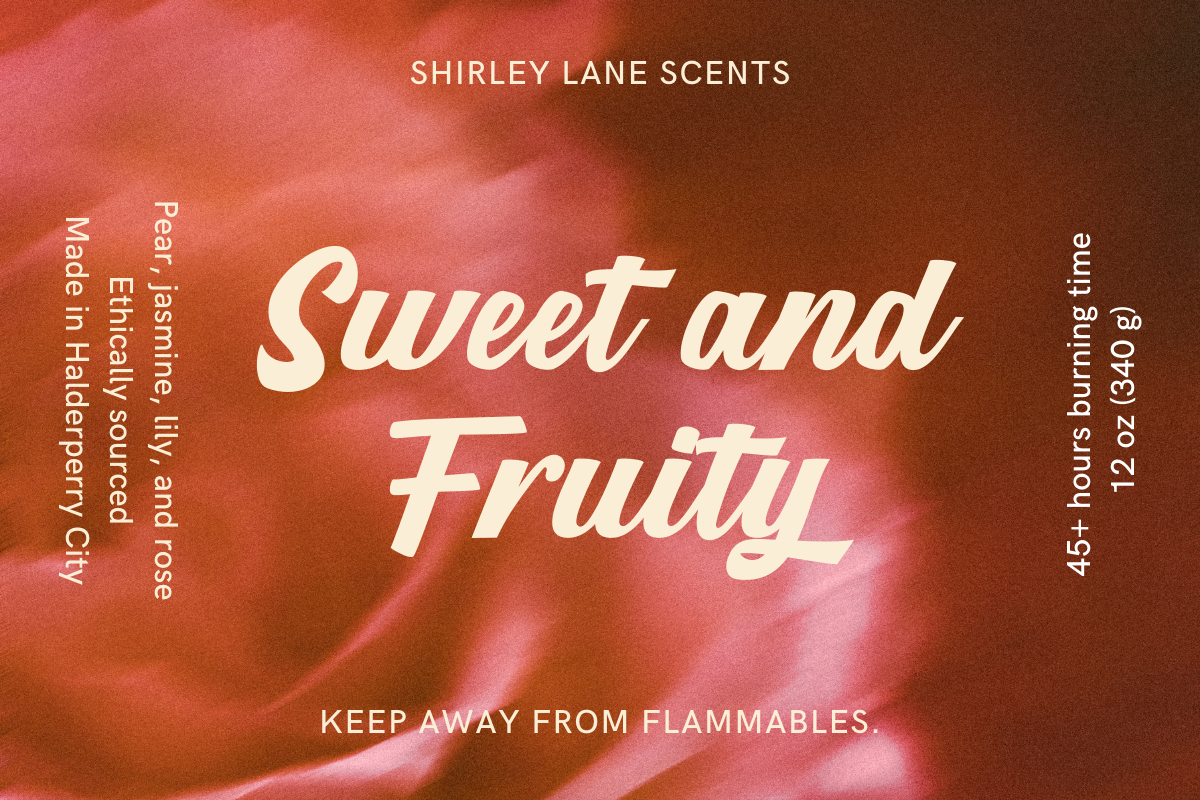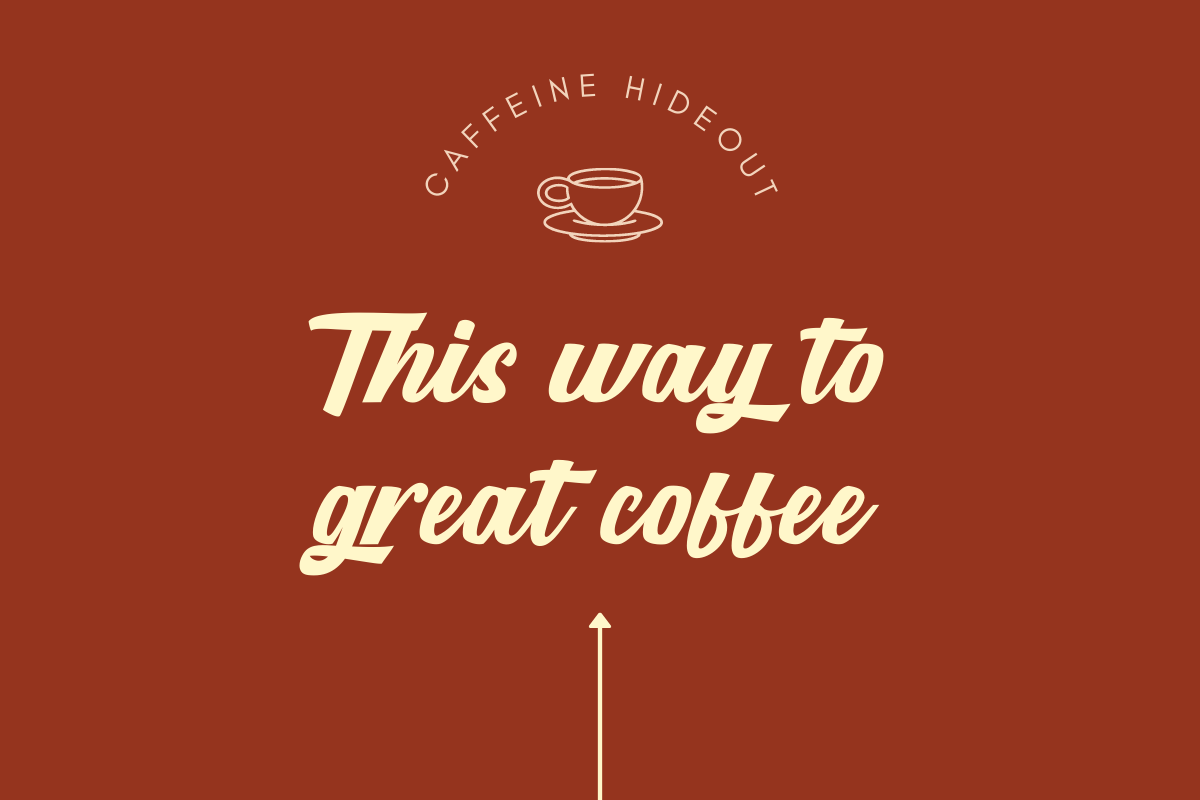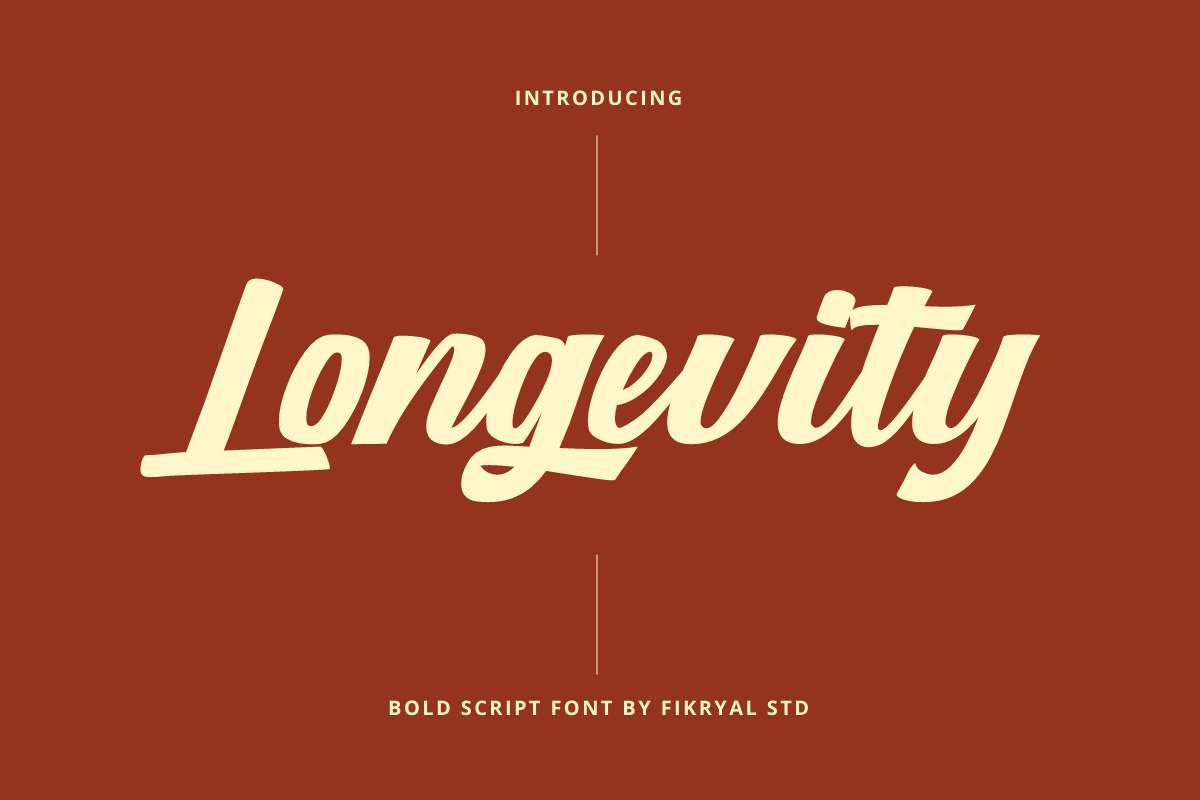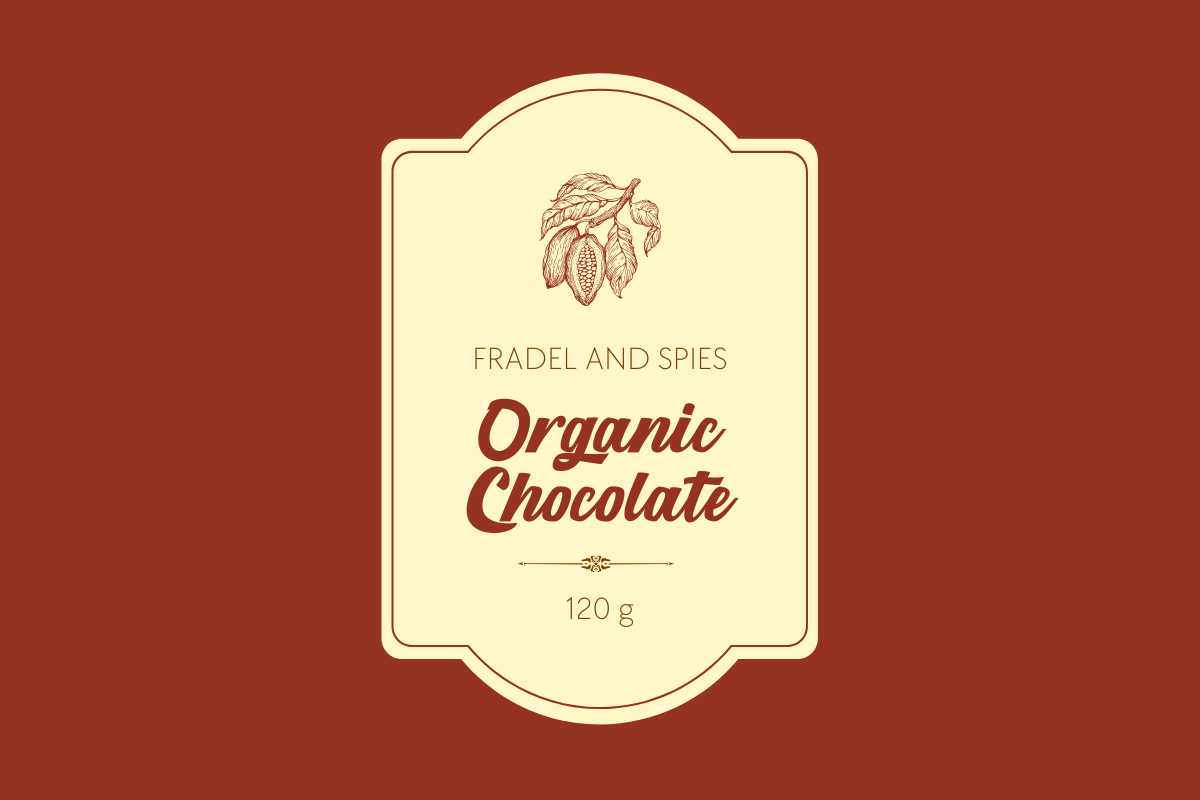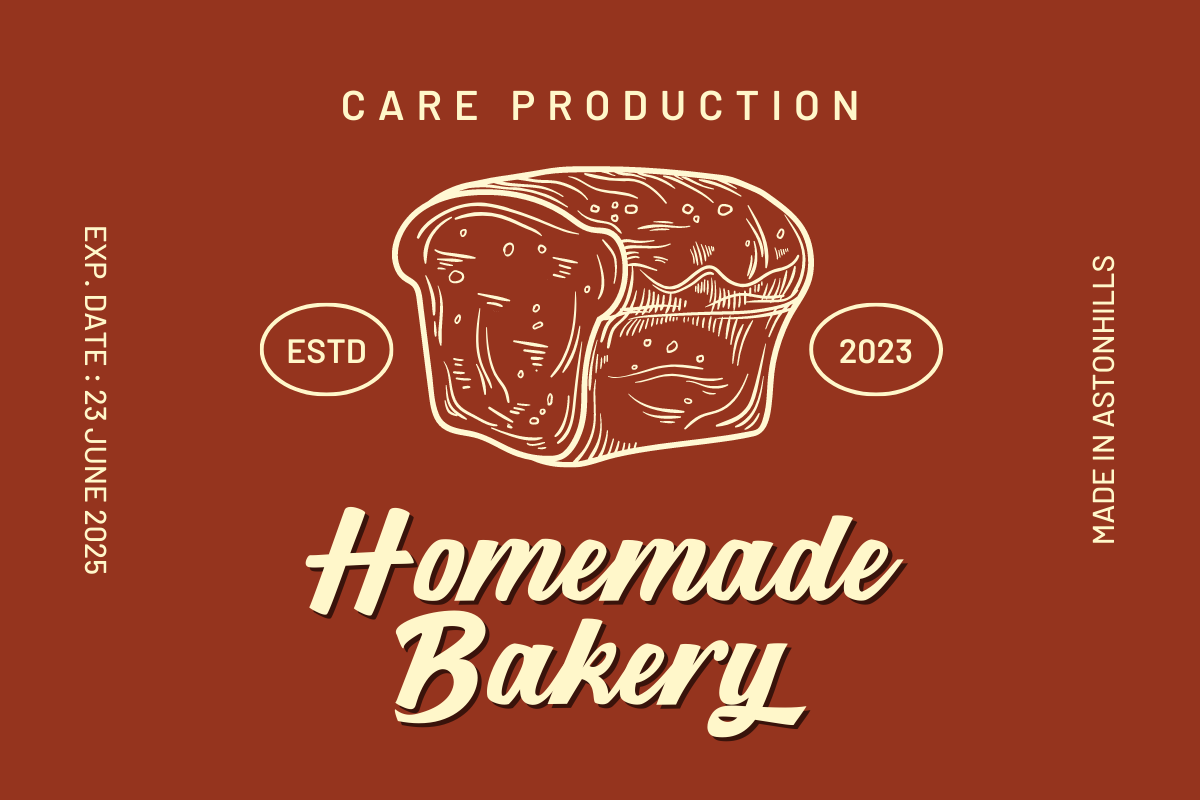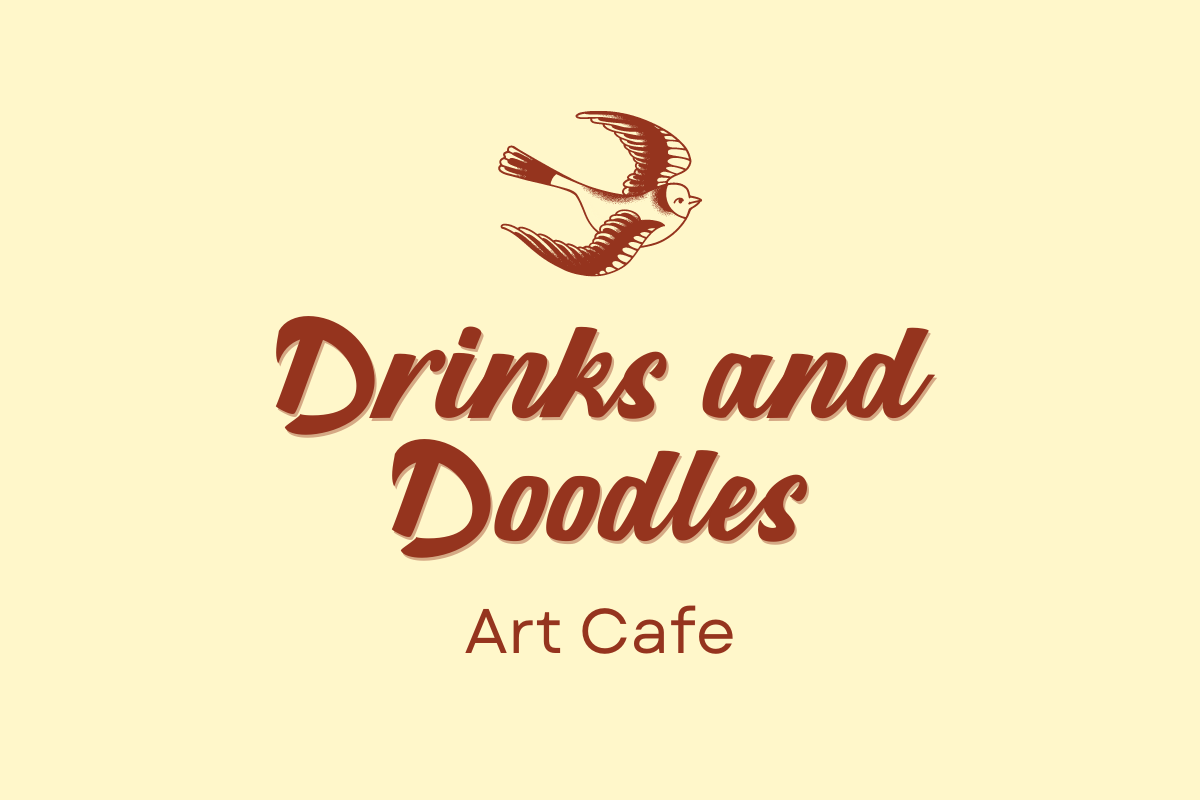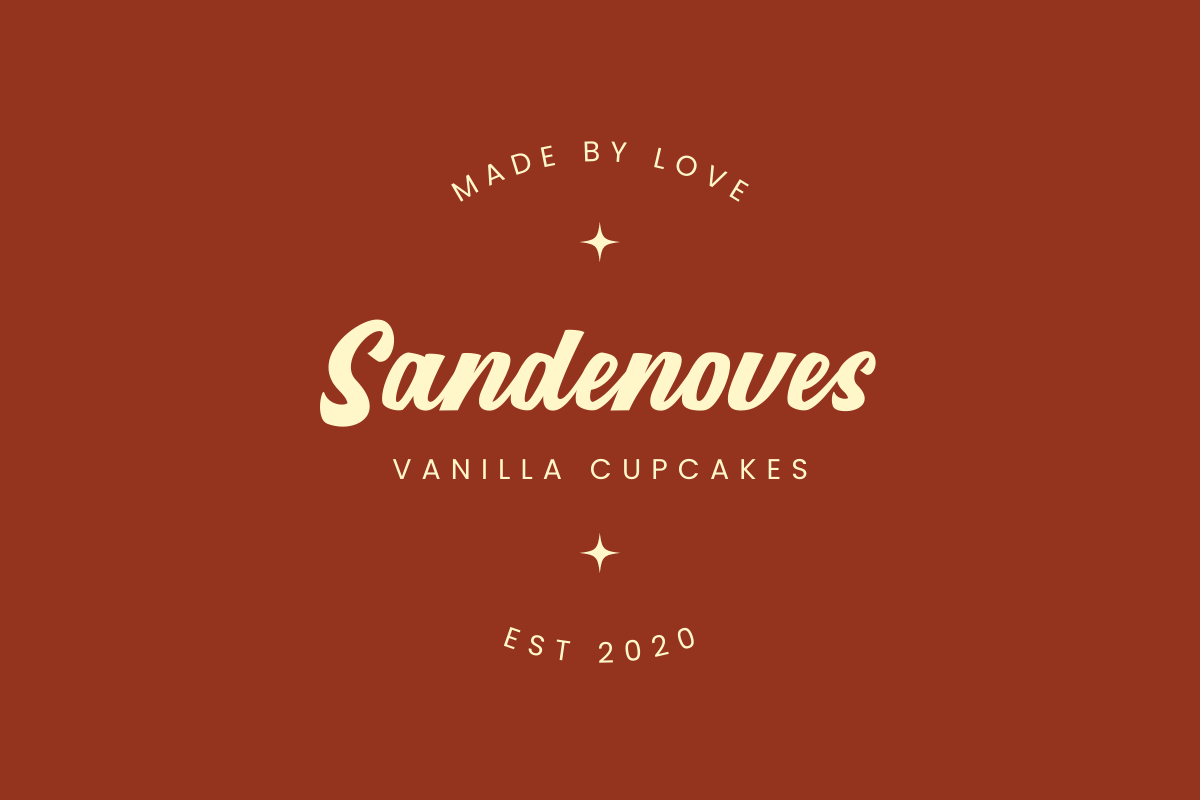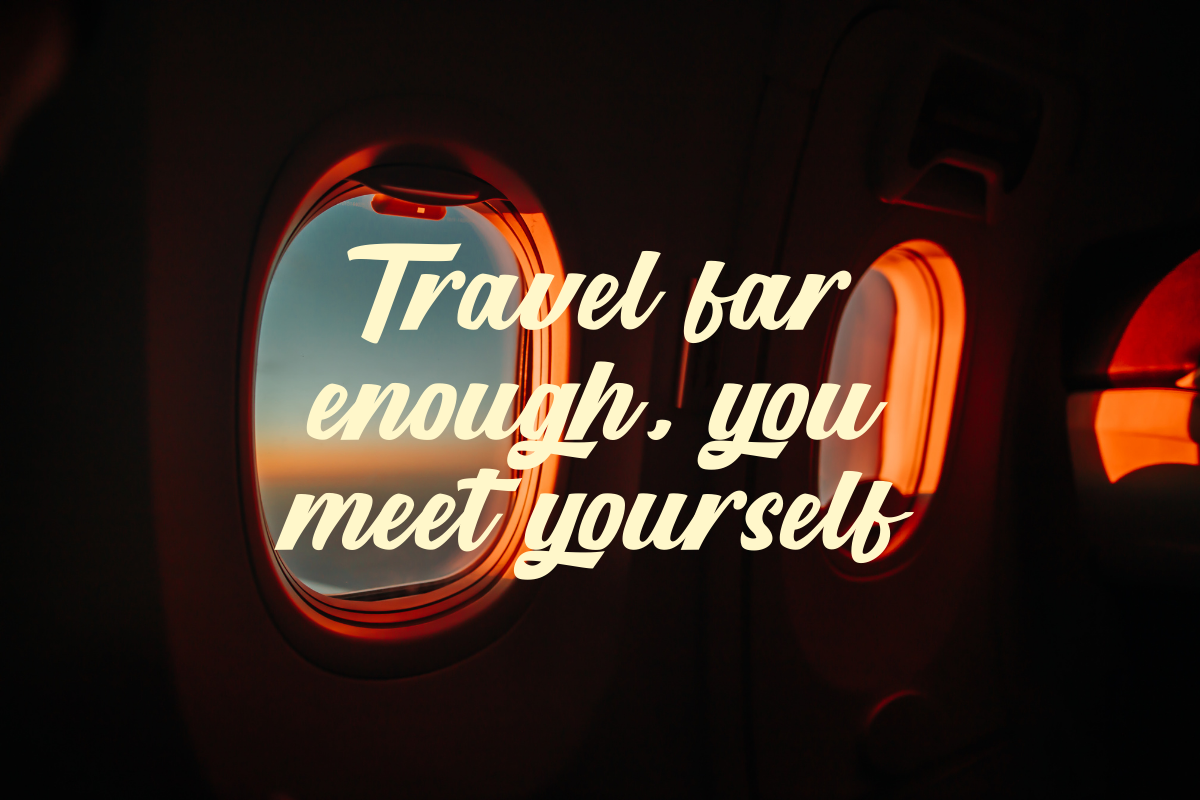
Longevity – Bold Script Font
Introducing the stunning Longevity Bold Script Font, a true masterpiece of typography that will bring elegance and sophistication to any design project.
Crafted with the utmost attention to detail, this font boasts an exquisite hand-lettered script style, complete with bold strokes and delicate flourishes that add a touch of luxury to any text. Its timeless design ensures that it will remain a classic for years to come, while its versatility allows it to adapt to any design concept, from wedding invitations to product packaging.
The Longevity Bold Script Font is perfect for designers looking to make a bold statement, whether it’s on a website, brochure, or social media post. Its bold and confident appearance exudes a sense of strength and power, making it ideal for branding projects, logos, and headlines.
With its sleek and stylish aesthetic, this font is sure to impress your clients and elevate your design work to new heights. So why settle for ordinary when you can have extraordinary? Choose the Longevity Bold Script Font and create designs that will stand the test of time.
alternates
multilingual support